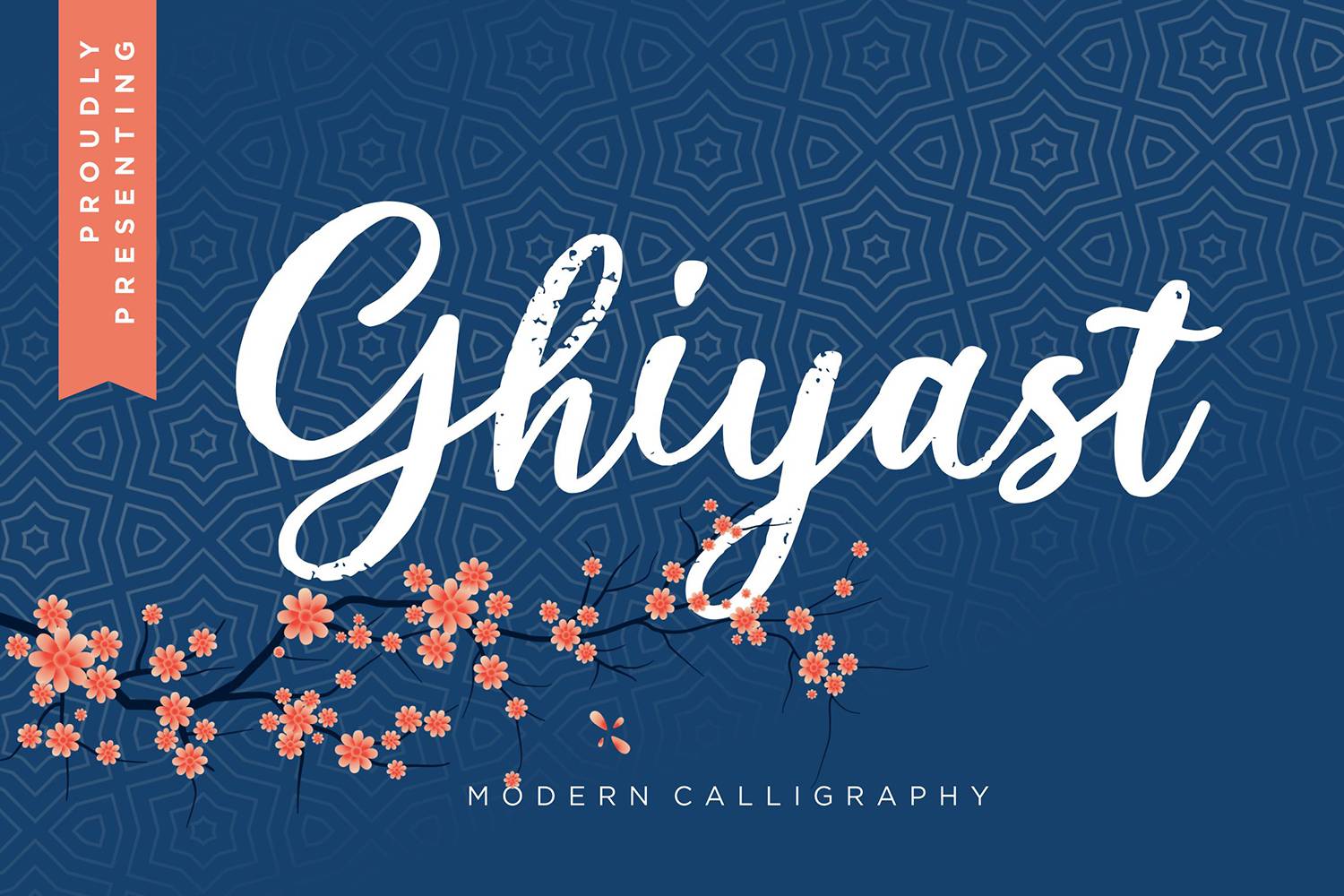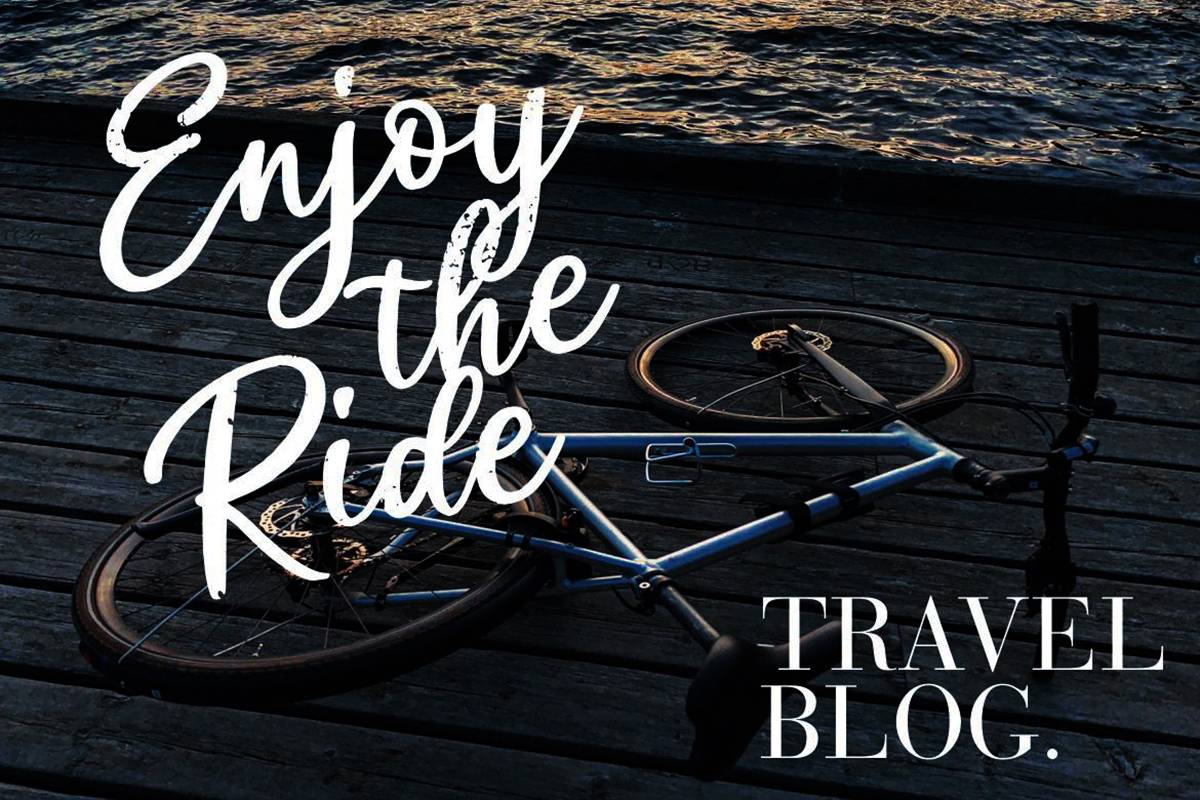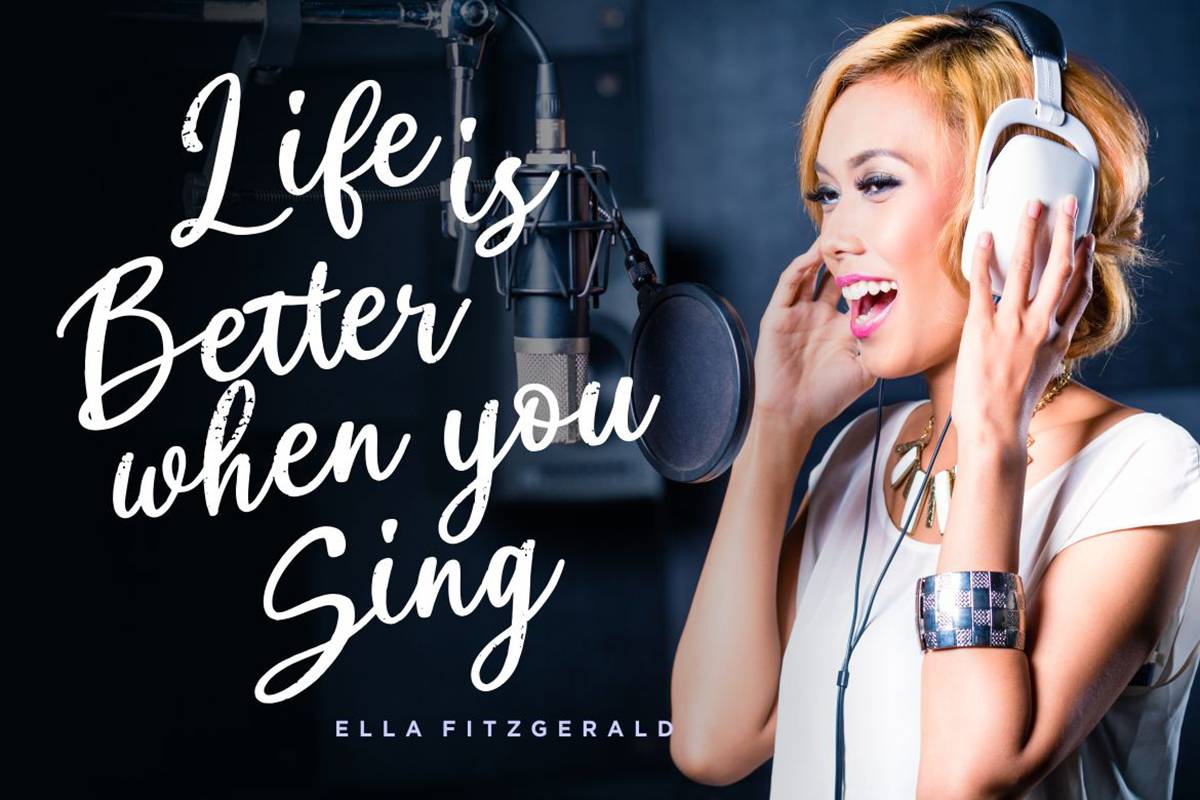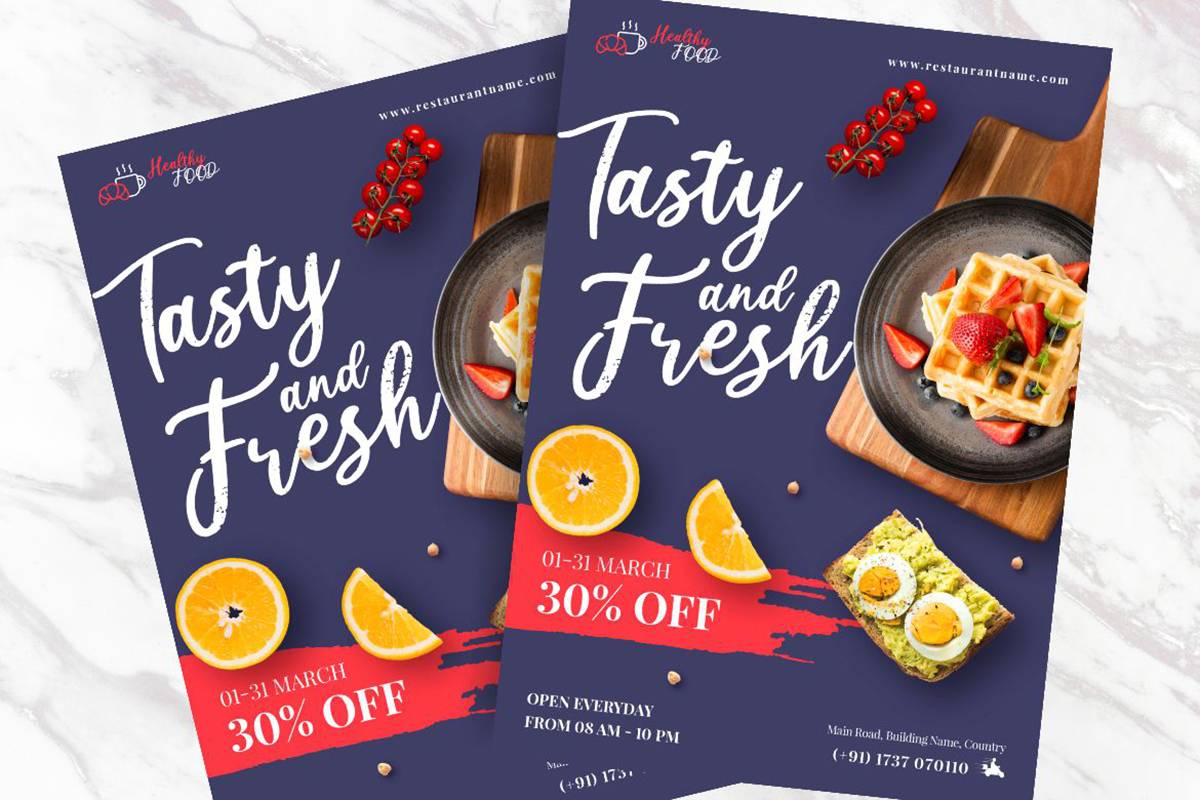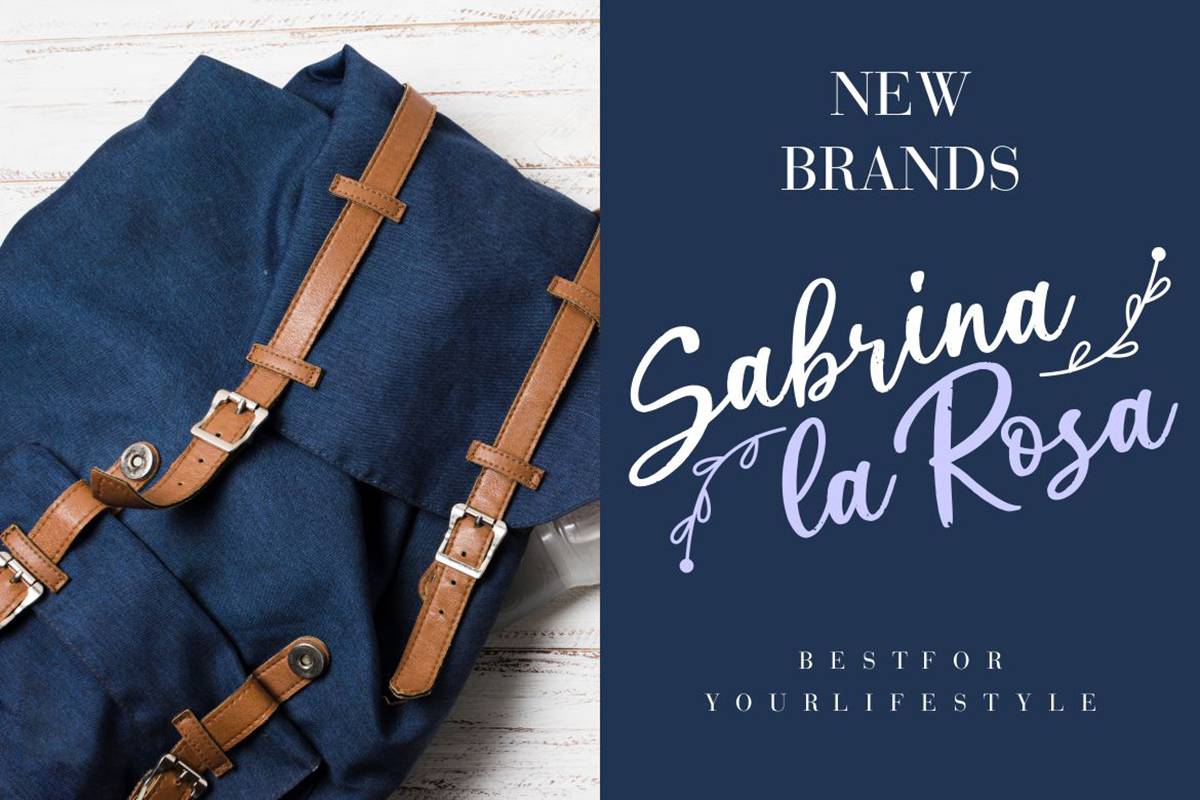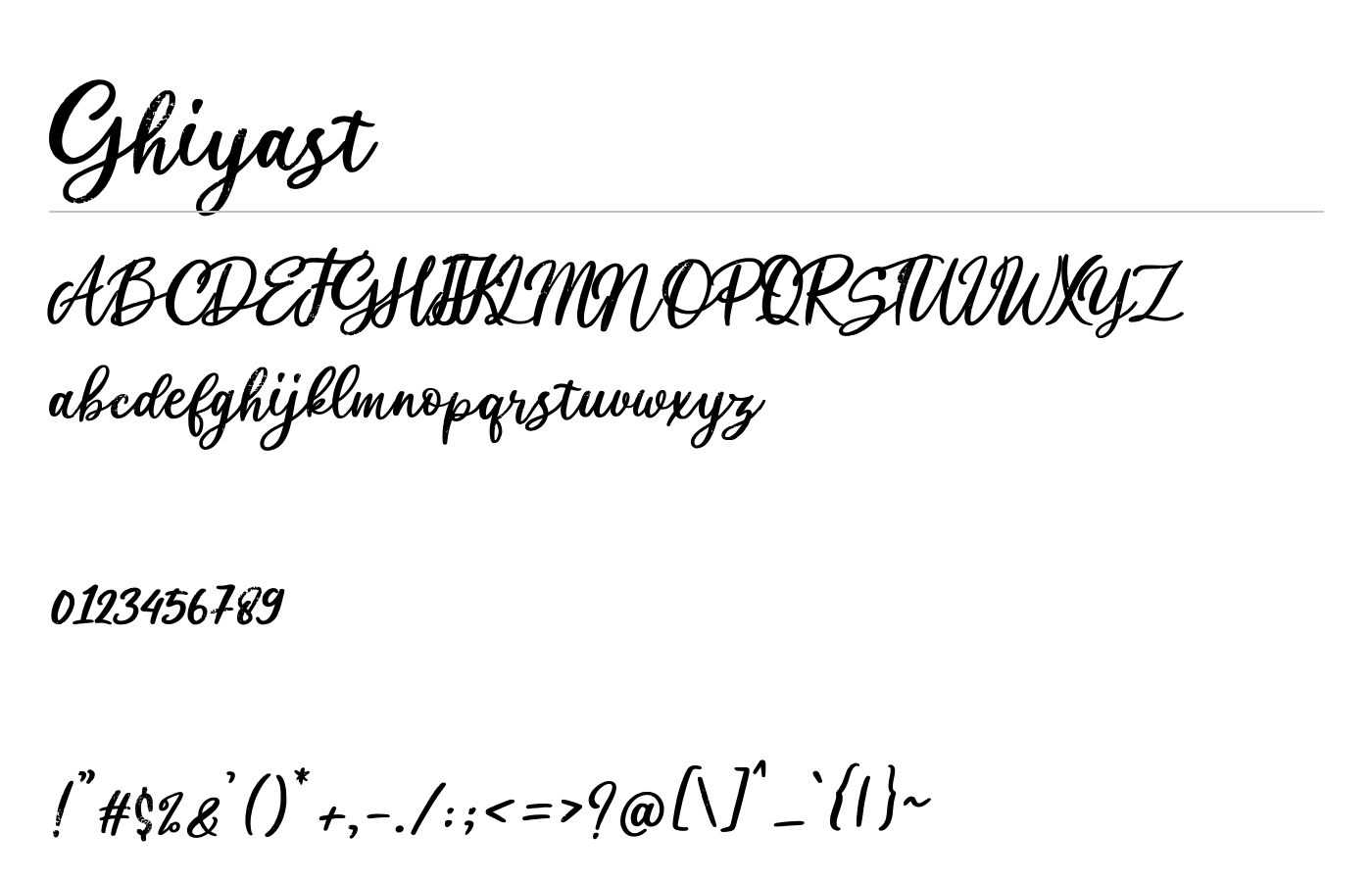
Ghiyast is a graceful script font with a slightly textured, handwritten feel that adds warmth and personality. Its medium weight and fluid letterforms with subtle variations create an elegant yet approachable style, making it ideal for invitations, branding, and creative projects seeking a personal touch. This font shines in designs where a stylish, casual sophistication is desired.
Ghiyast Font